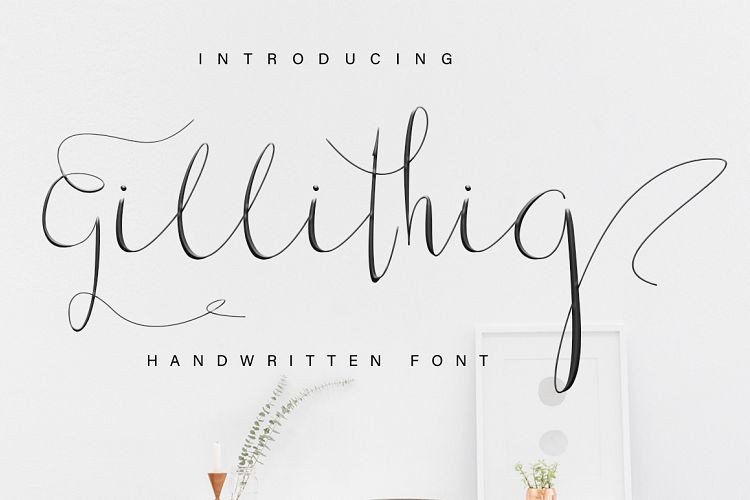
Gillithig Script Font
Hi Font Lover! This is a new handwritten font. It’s an organic, casual, smooth, and gorgeous dancing font made carefully from the real handwritten. Great choice for your special moment or special project. Introducing Gillithig Font. It comes with an elegant and feminine style which is perfect to make any design stand out! This font is perfect for branding, wedding invites, magazines, mugs, business cards, quotes, posters, and more.